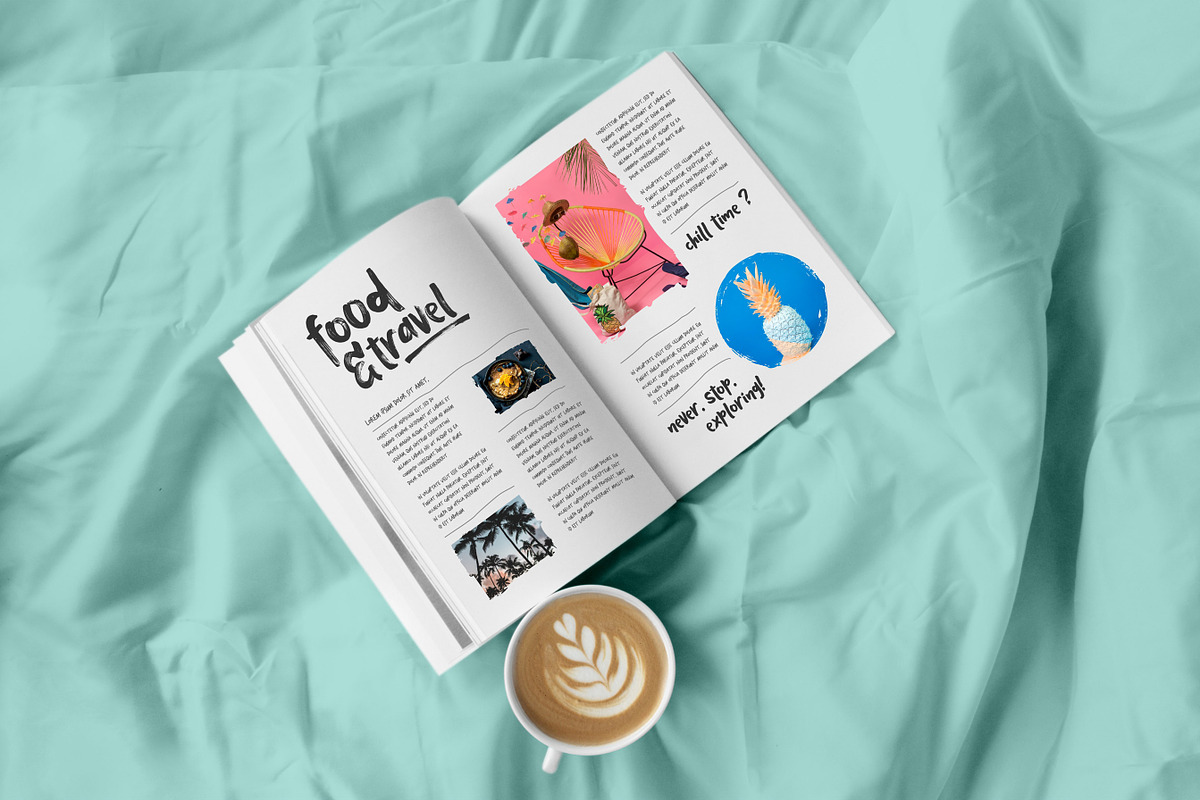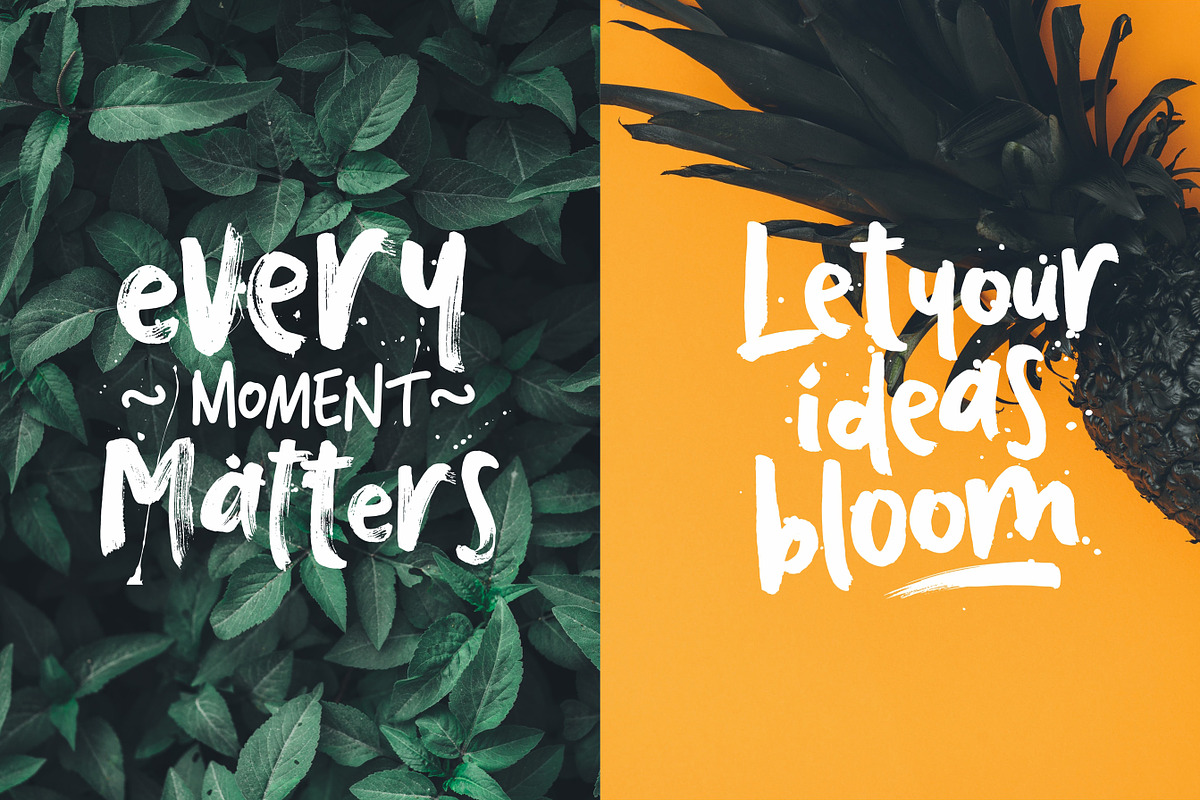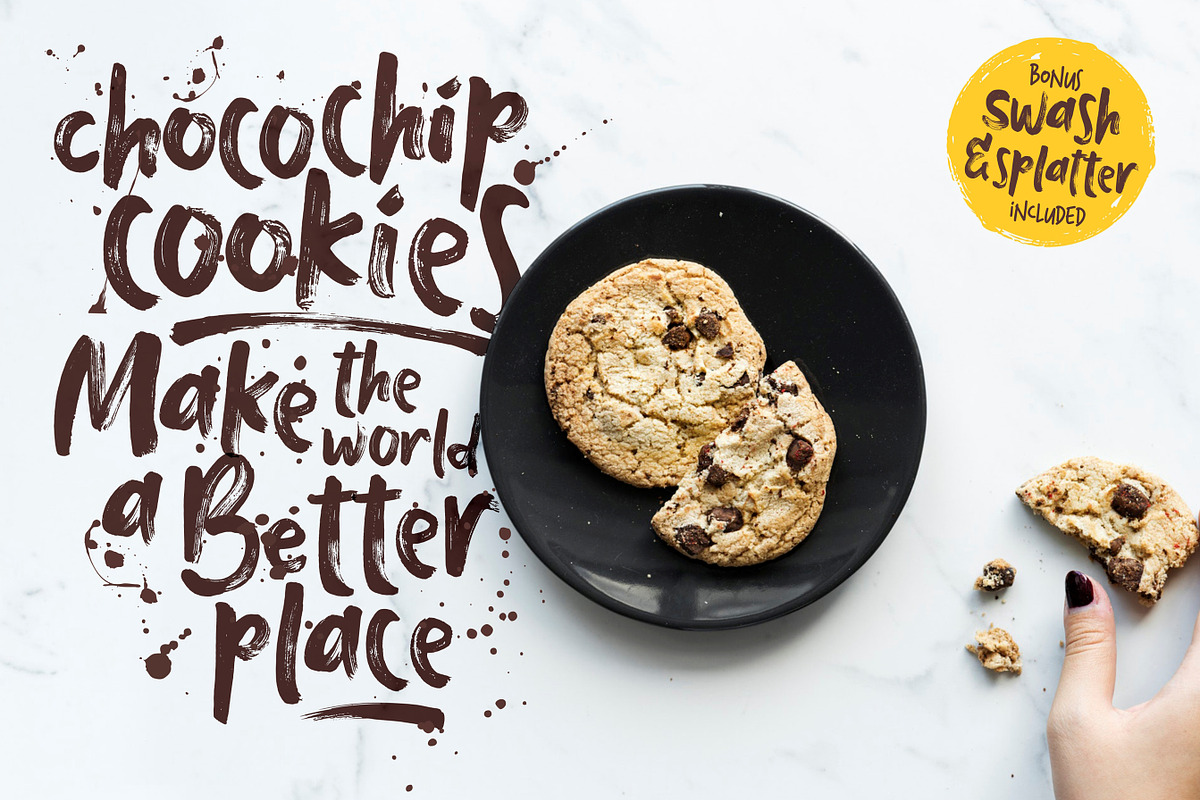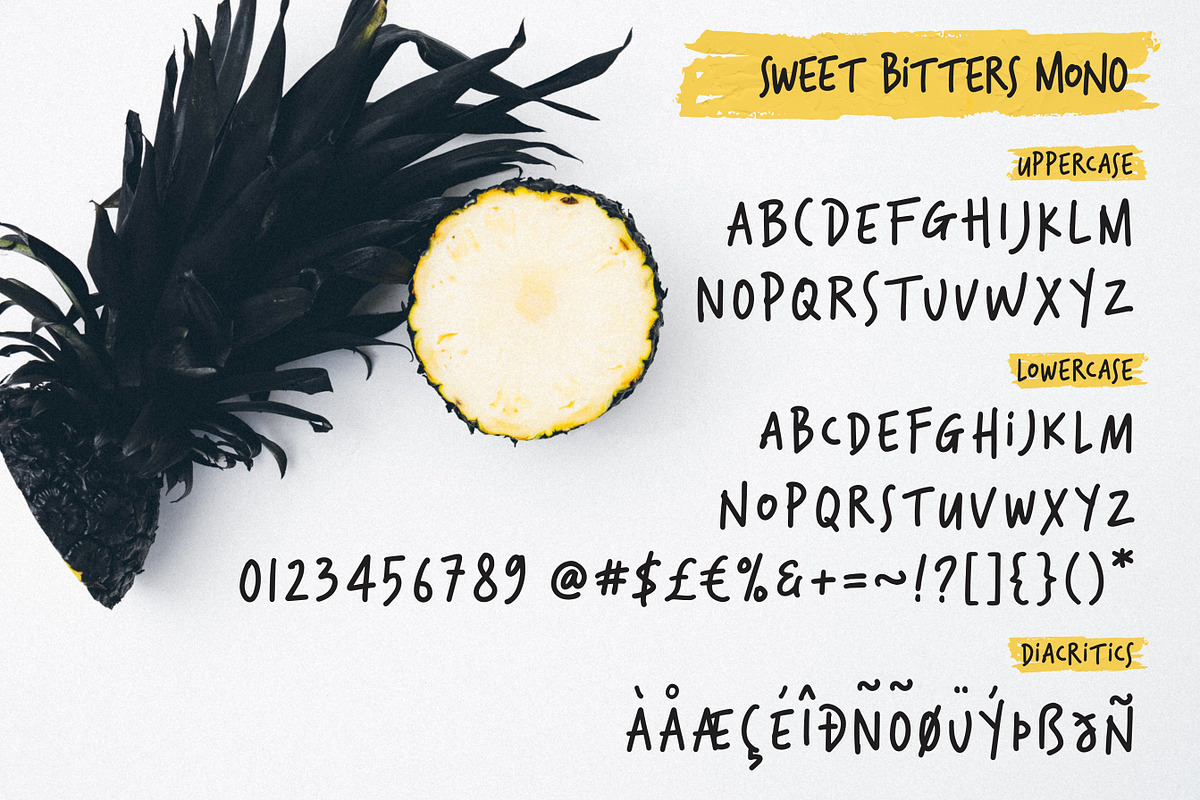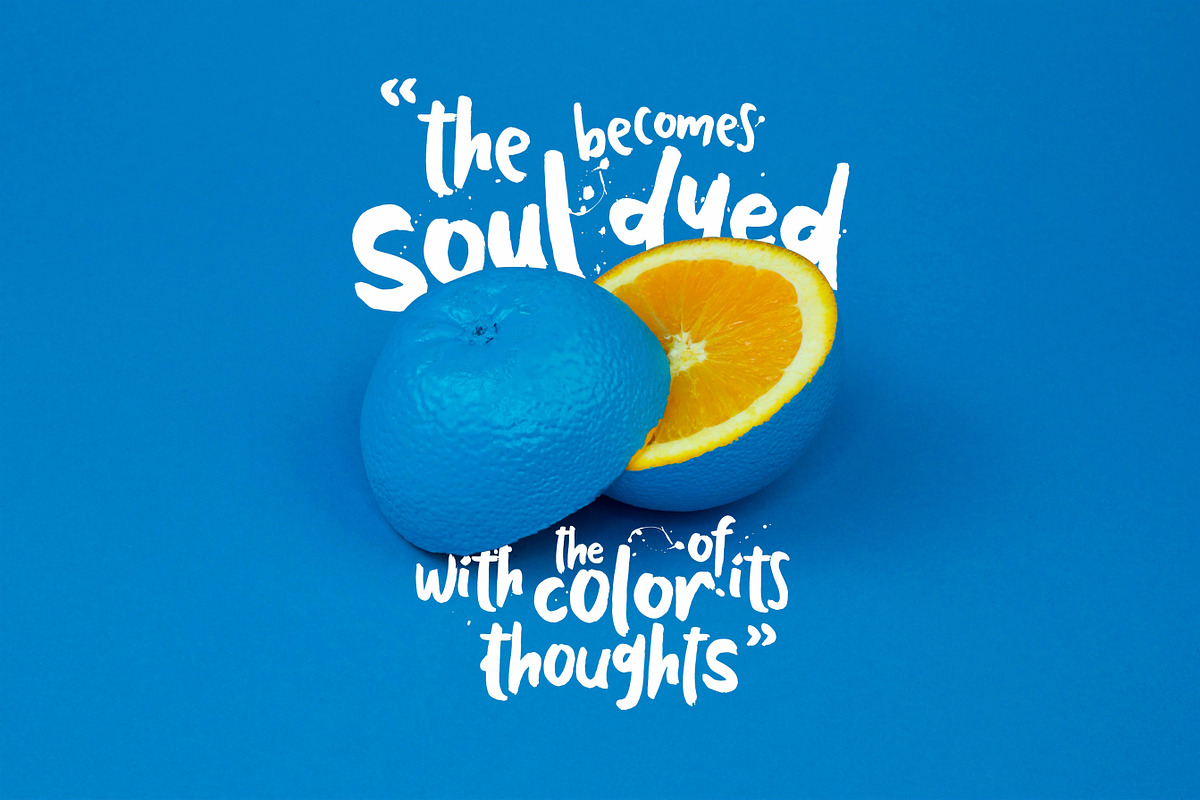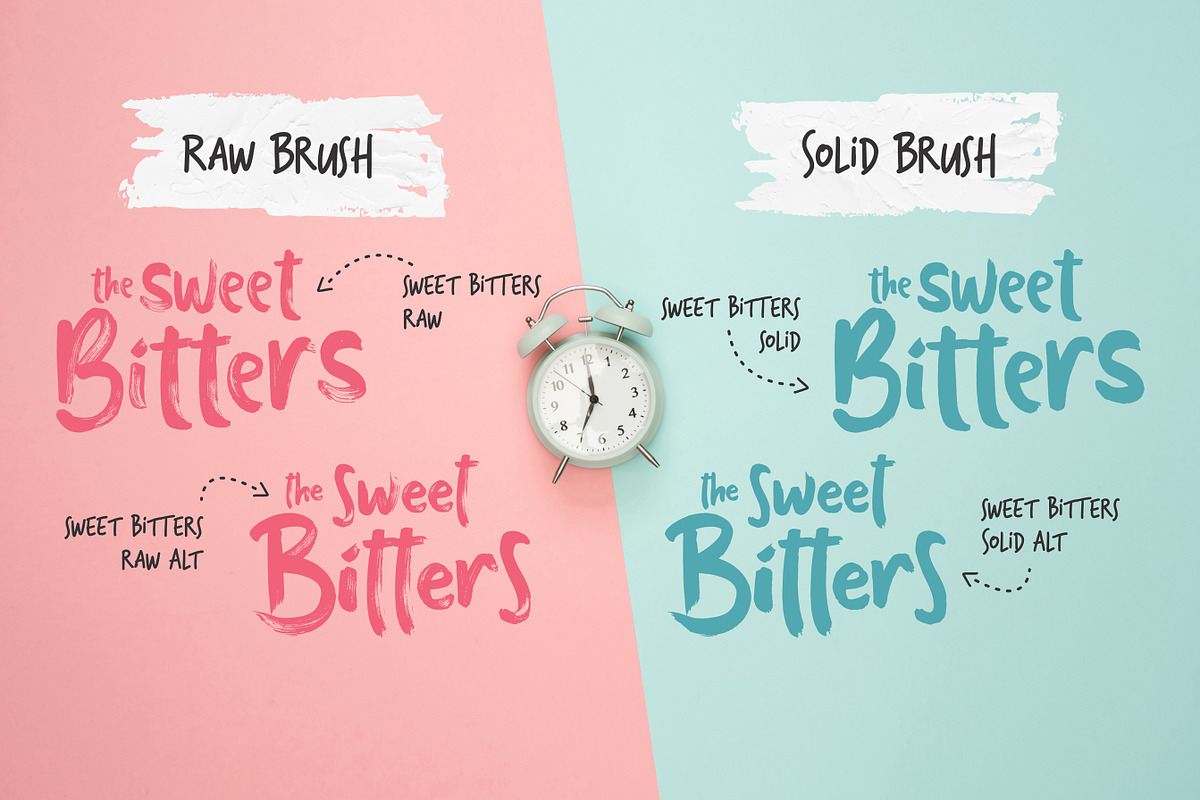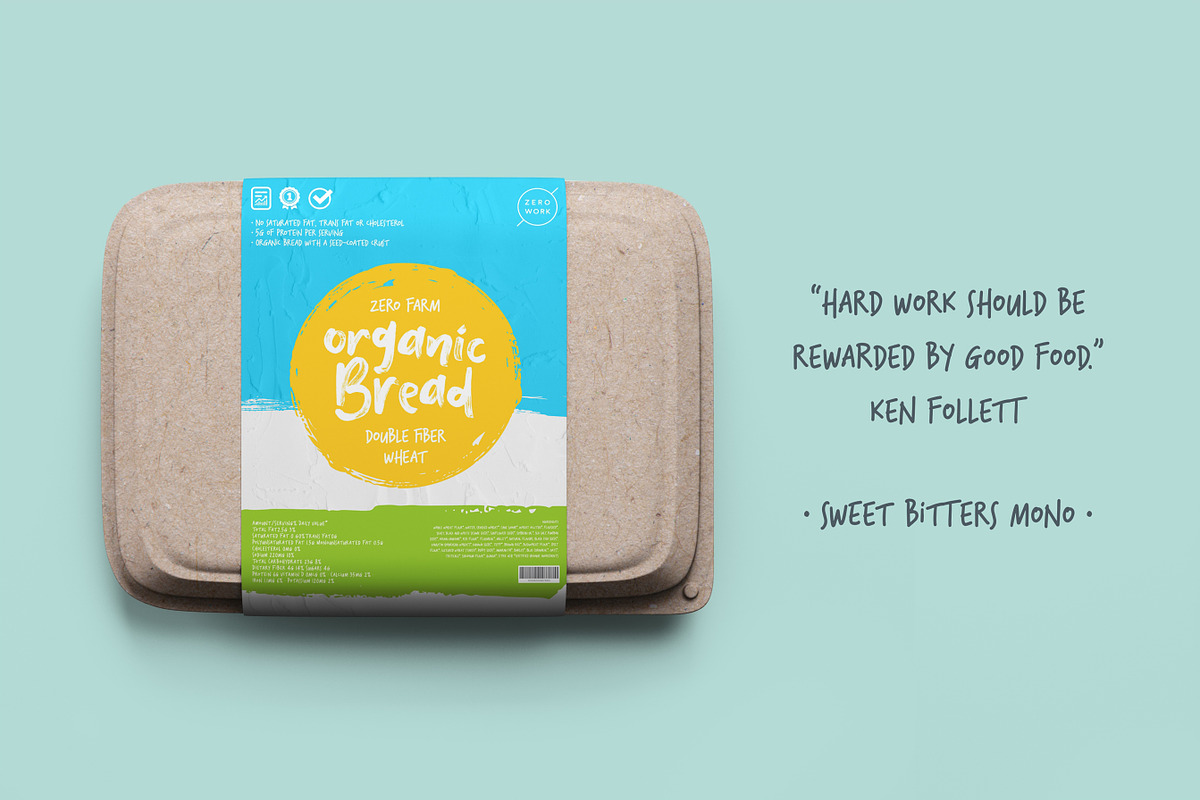
Sweet Bitters Fonts + EXTRAS!
The era of freedom expression (in all fields) is begin all forms or creations is made more personal, to show a more authentic self-identity.
Based on admiration of the maestro / painter's handwriting & expression : van gogh, gustav klimt, gauguin, cezanne, egon schiele, jean michel basquiat, etc. With their brush strokes that are very personal & unique.
Creations of works through face (manual) is more admired because it shows personal impressions that more authentic.
The "Sweet Bitters" fonts is made to combine personal side of the creator's Expression of this font has a unique uniqueness because it looks natural & spontaneous.
You can apply this fonts to various forms of creative products eg, product displays, greeting cards, posters, clothing, packaging / packaging products, cover books, etc.
The "Sweet Bitters" fonts come with two style :
Raw brush & Solid brush
you can choose & adjust the style that match with your projects. Each of it has a different uniqueness & impression.
In addition, we provide a pairing font called "Sweet Bitters Mono" and included the extras vector for Swash and Splatter, so the work that you make will looks more complete & maximal.